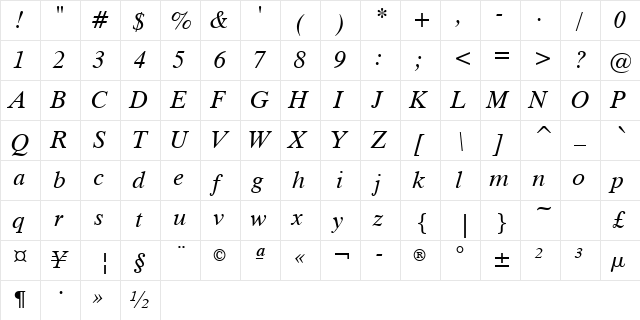
Dutch801Greek BT Inclined
Design Context for Dutch801Greek BT Typeface
Dutch801Greek BT offers clean, dependable letterforms without strong stylistic allegiance, making it a practical choice for designers who need flexibility.